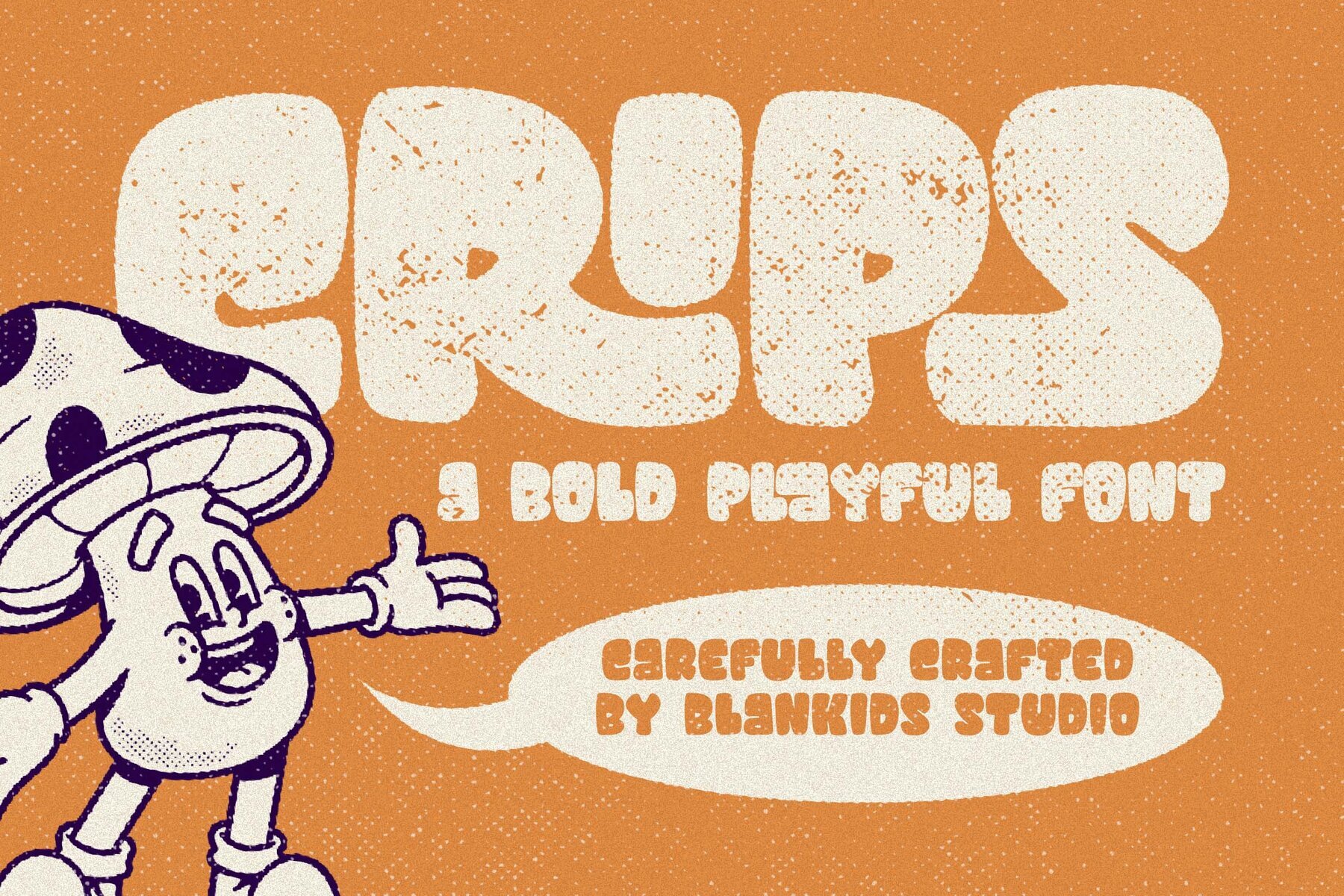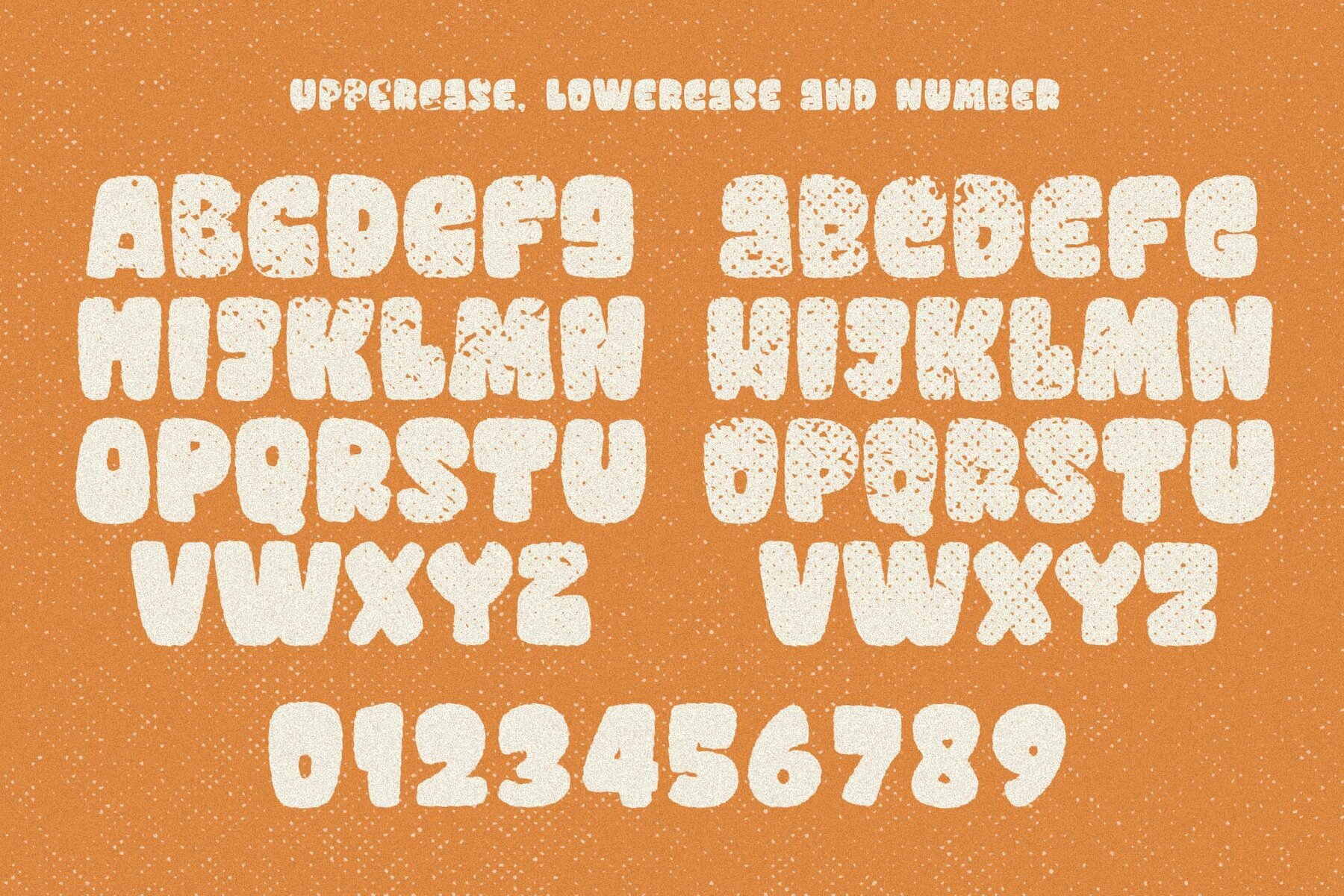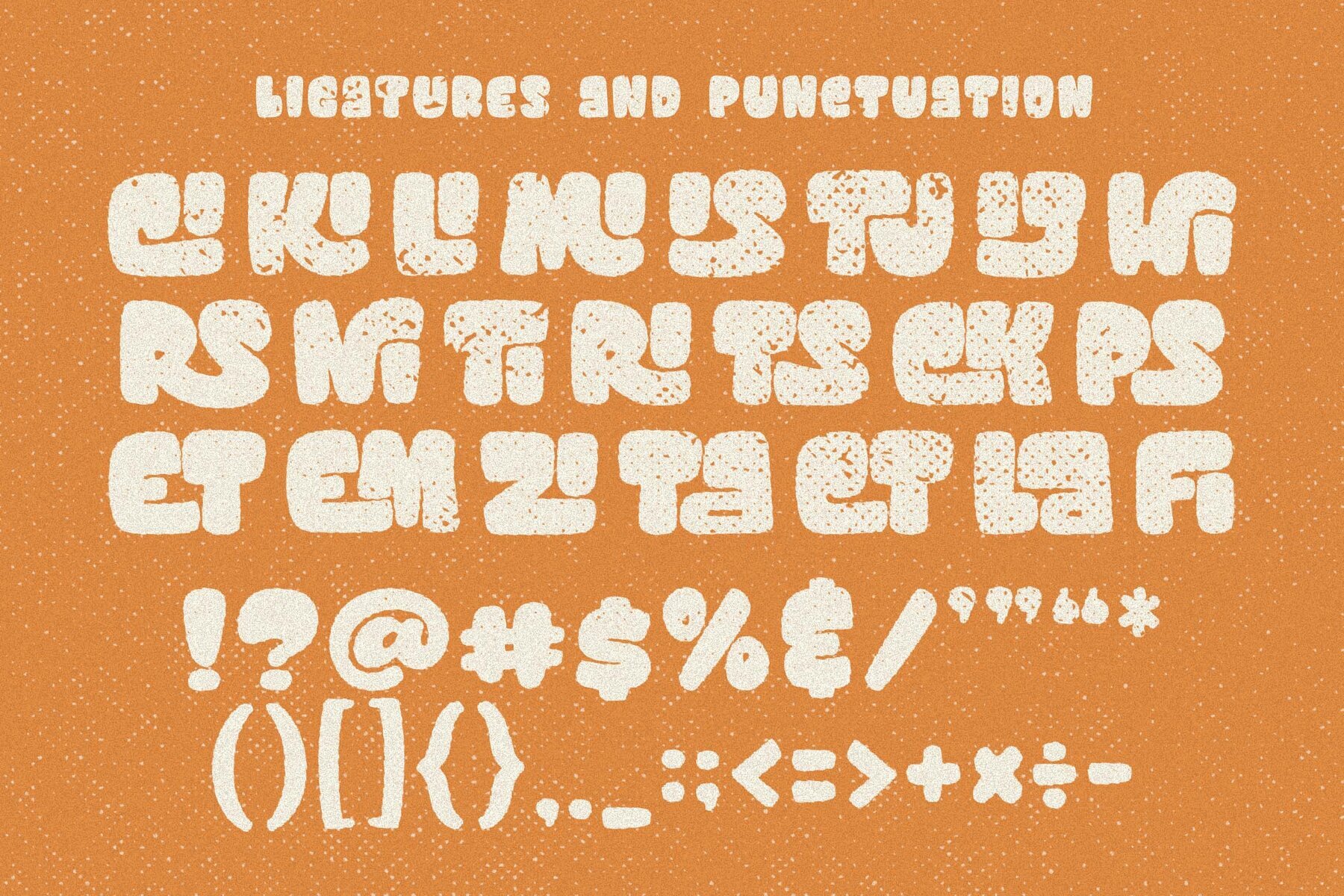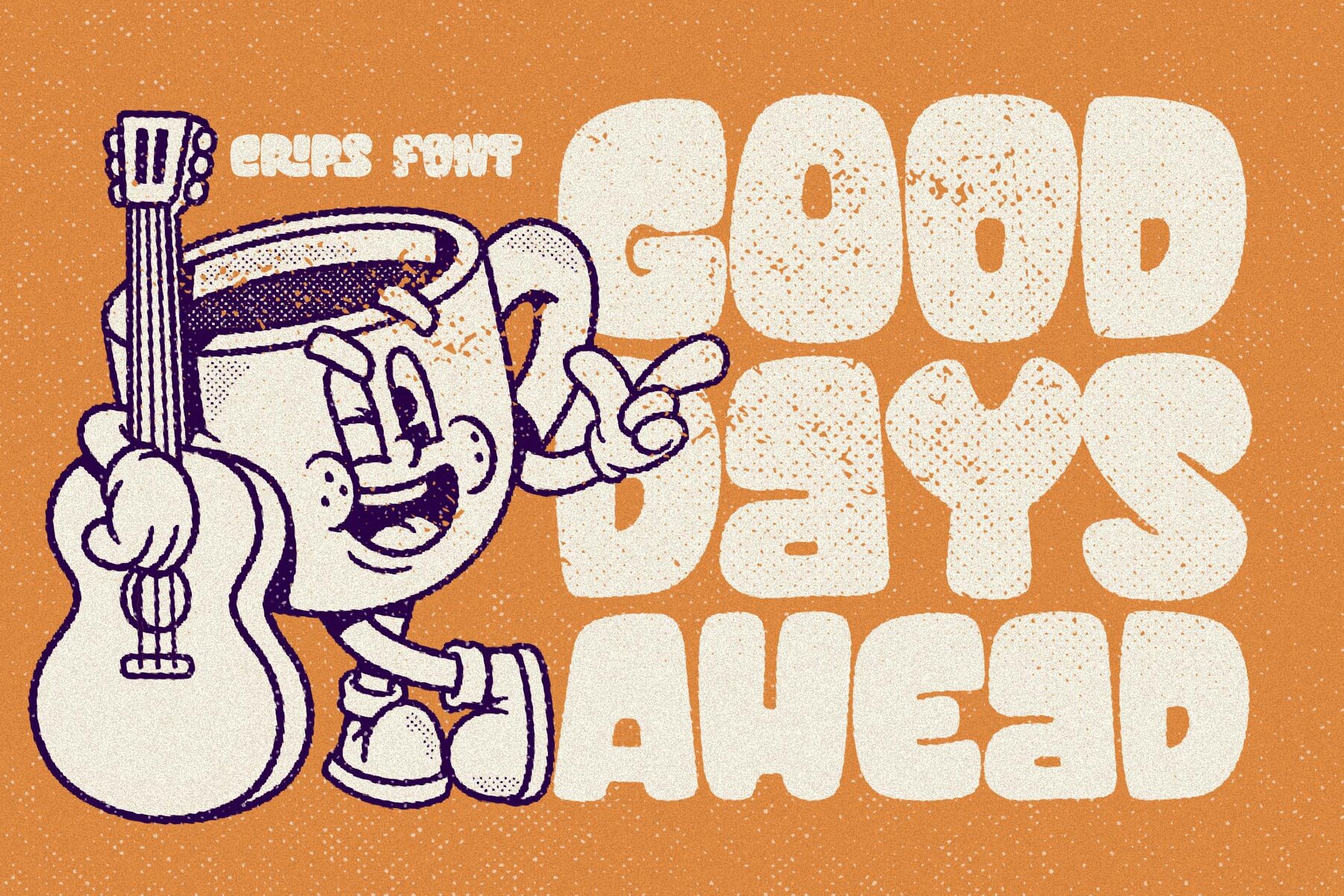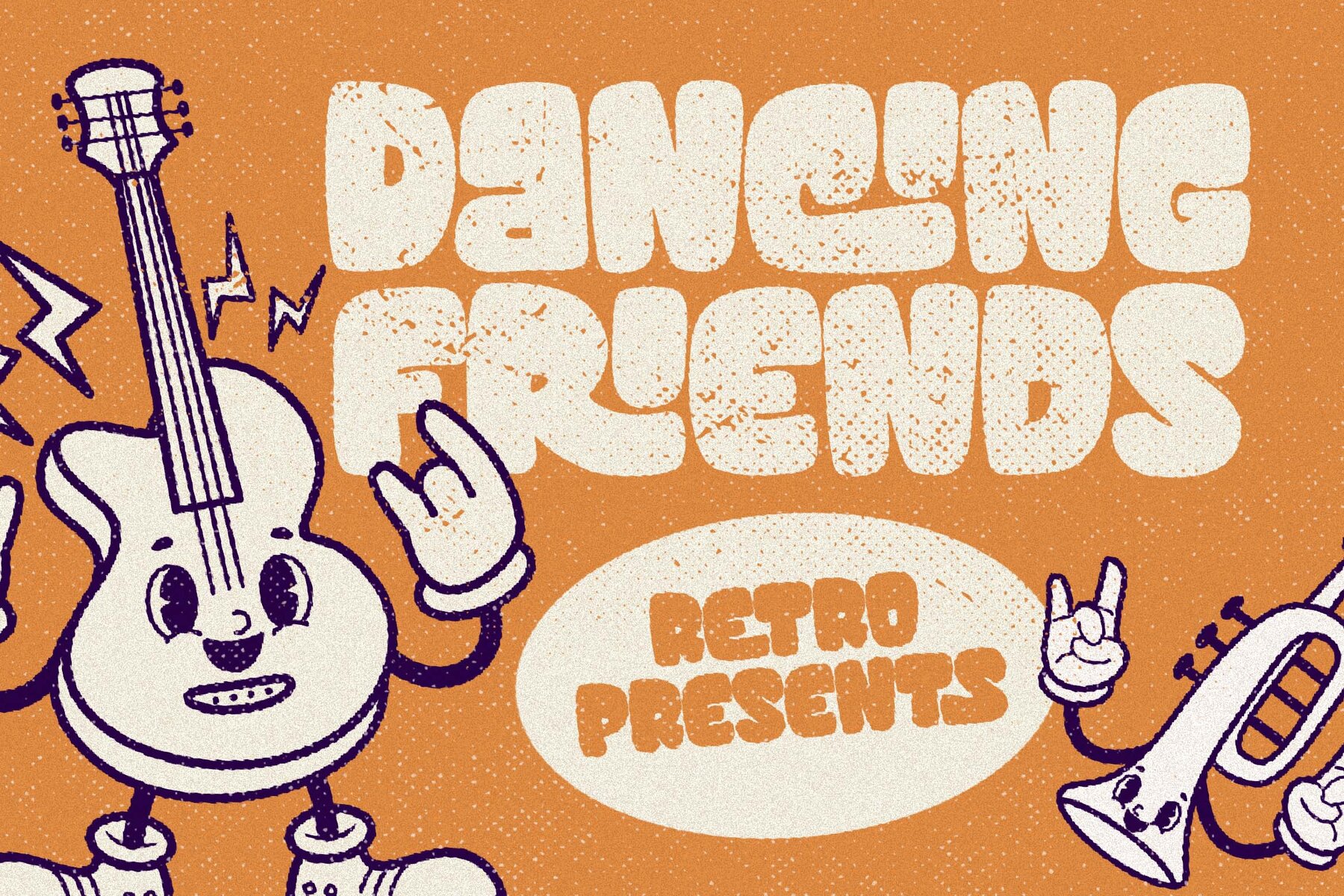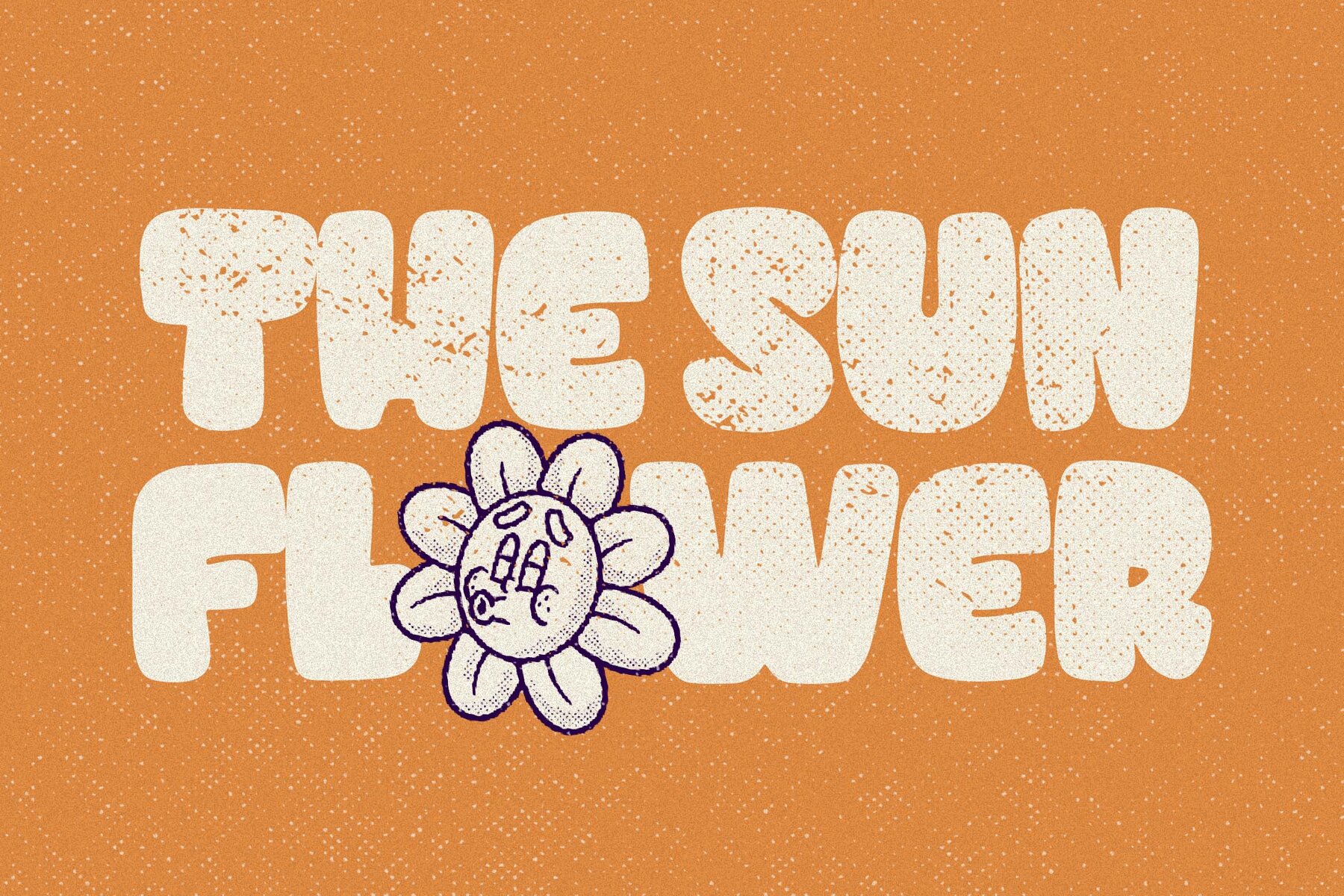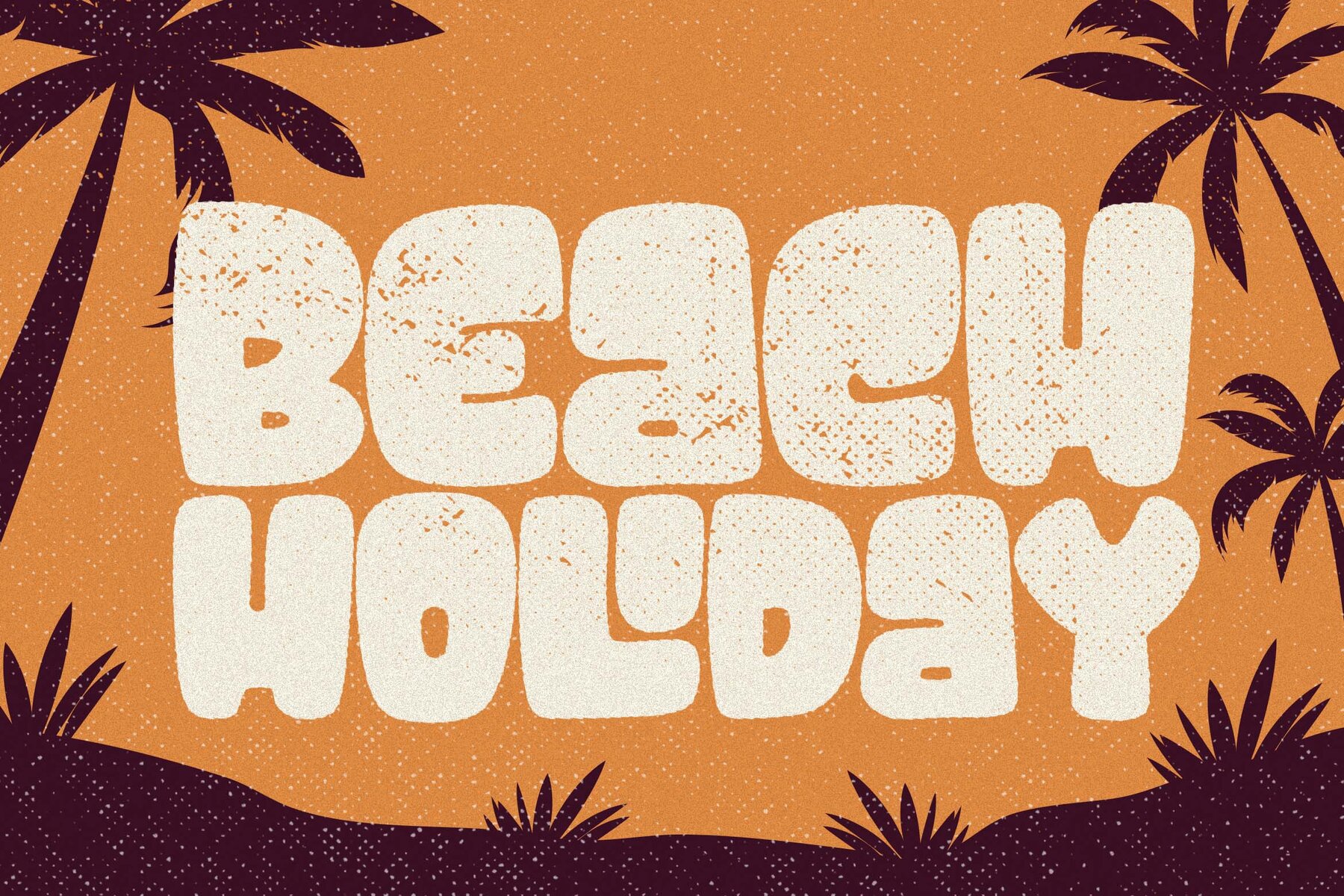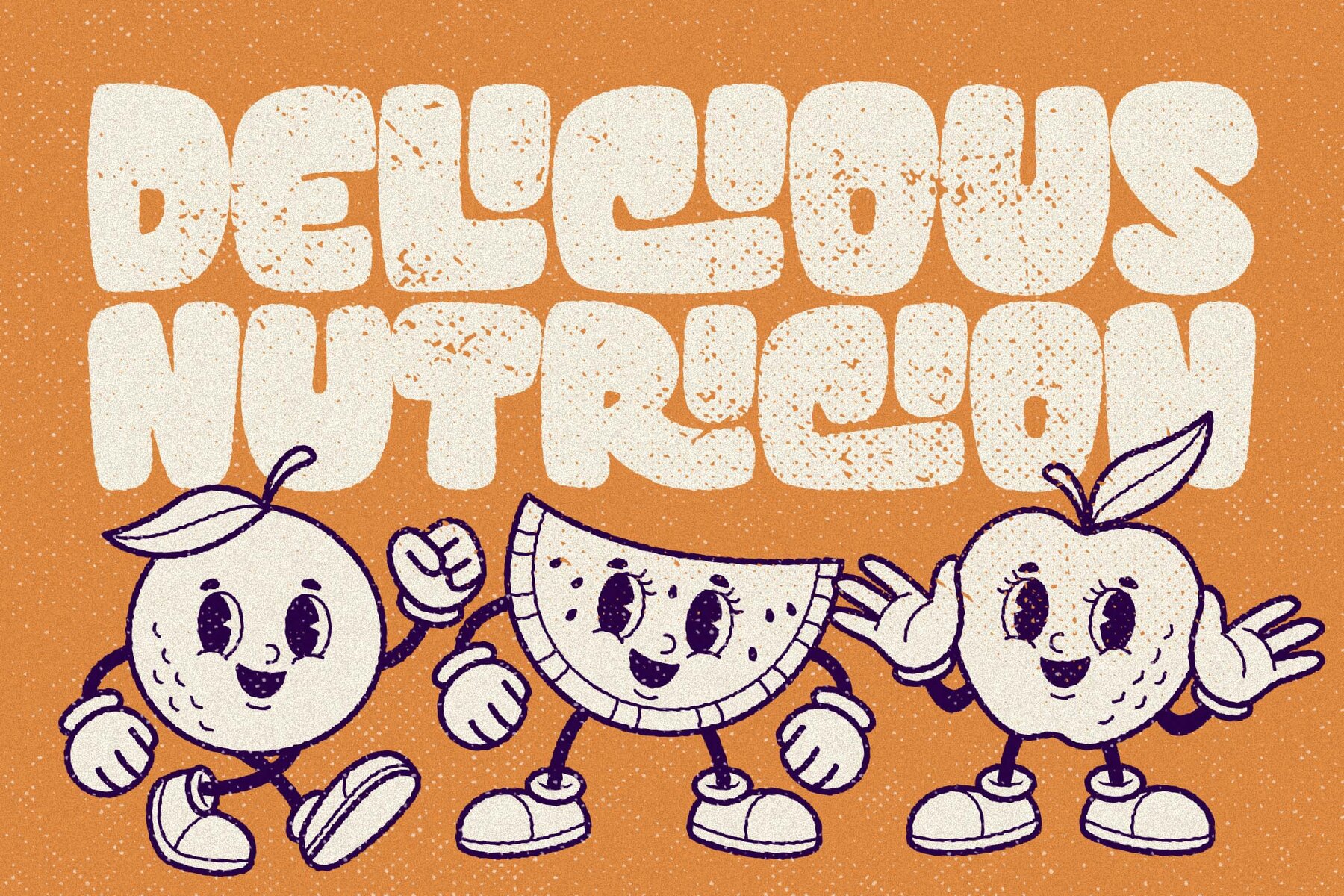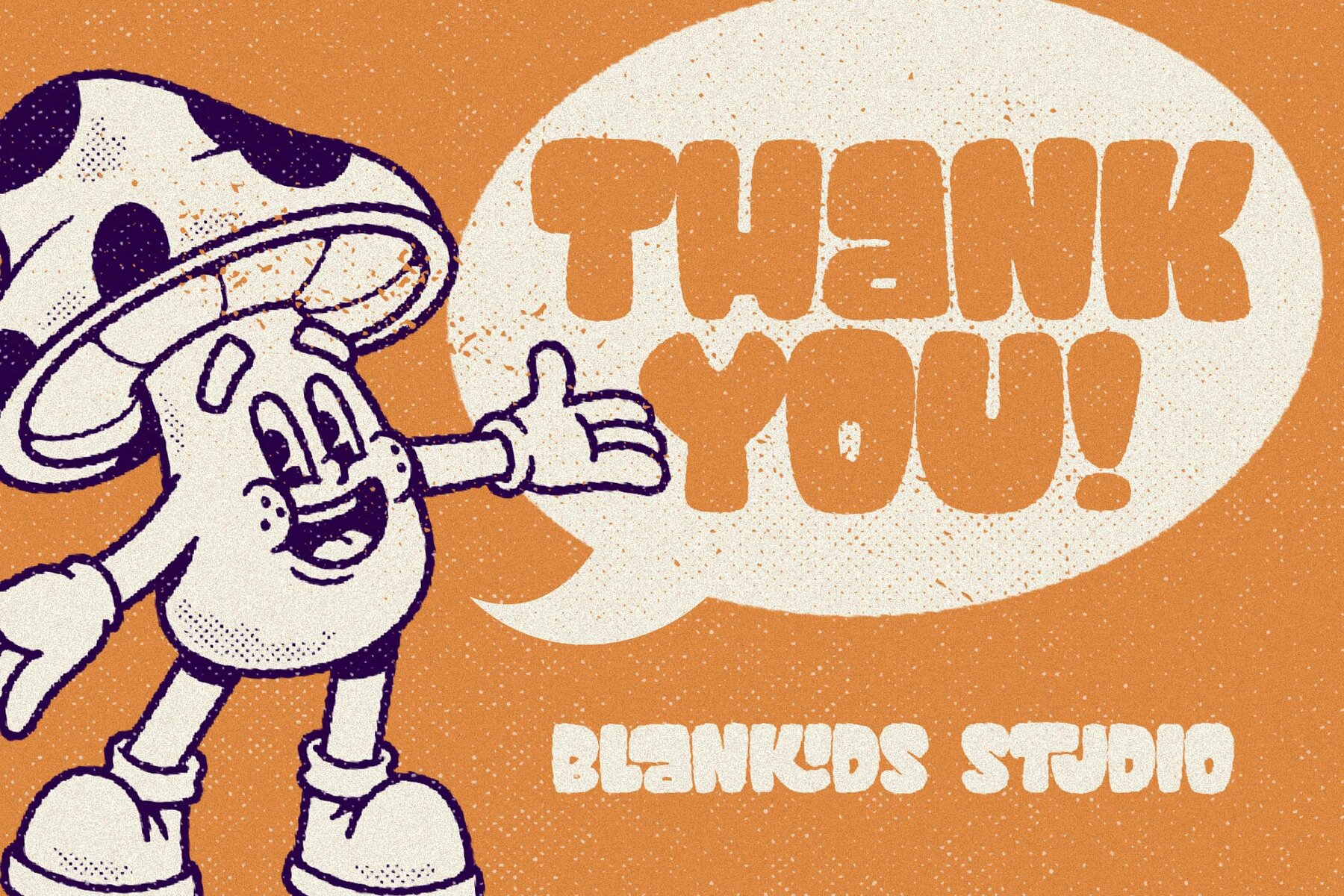
Crips Font
Crips
Crips brings an energetic, comic-inspired style to your creative projects. Each character features a lively and bold look, making it a reliable choice for professional branding needs, from logotypes to product packaging. Crips is designed to add a sense of fun and clarity to posters, promotions, comics, and watermarks. This playful font is available in both regular and extrude versions, offering flexibility for layered effects and greater visual impact. The complete character set includes distinctive uppercase and lowercase letters, as well as numerals and punctuation. For modern branding and designs that stand out, Crips delivers a fresh visual approach that captures attention easily.Crips Font – Bold and Playful Typography